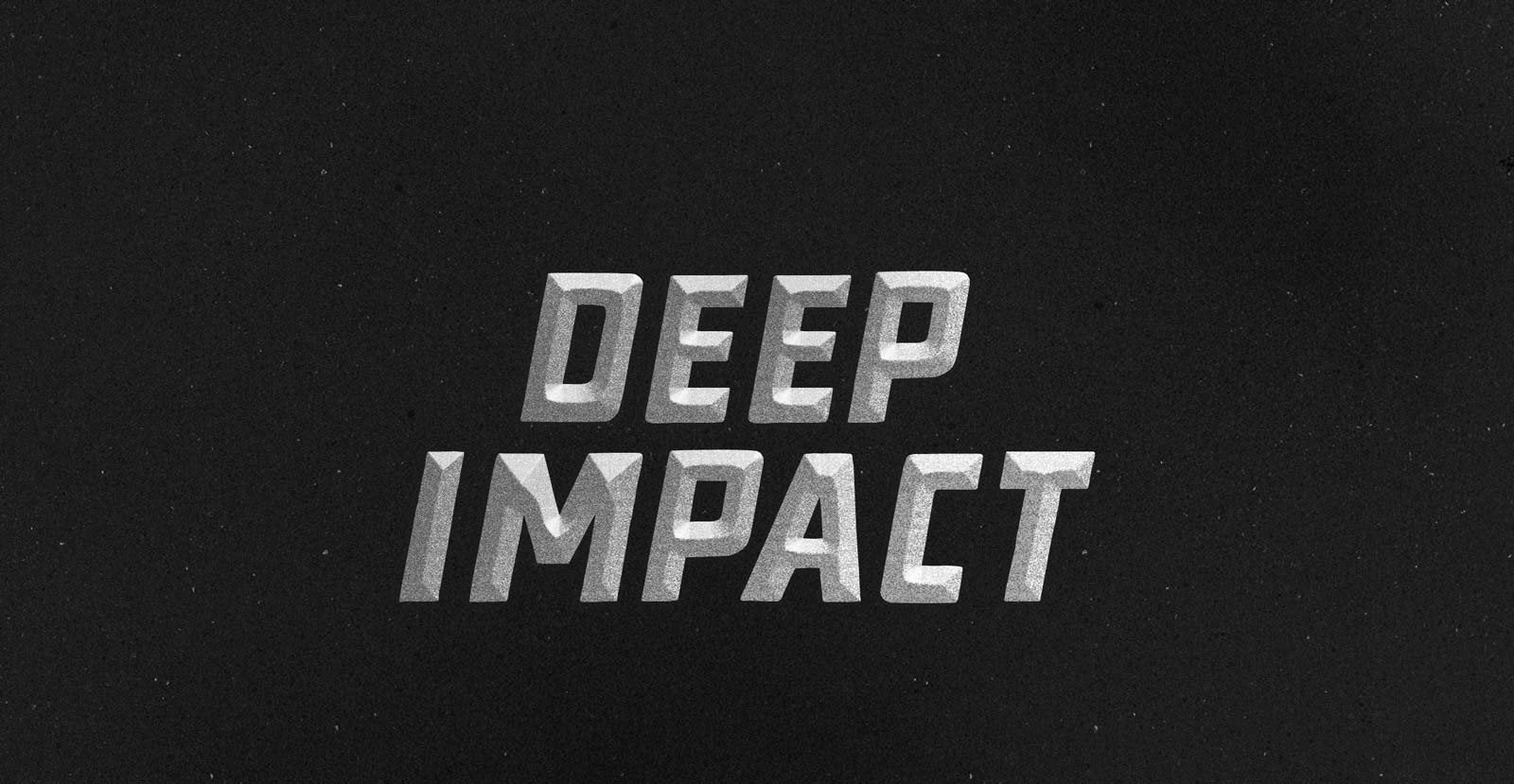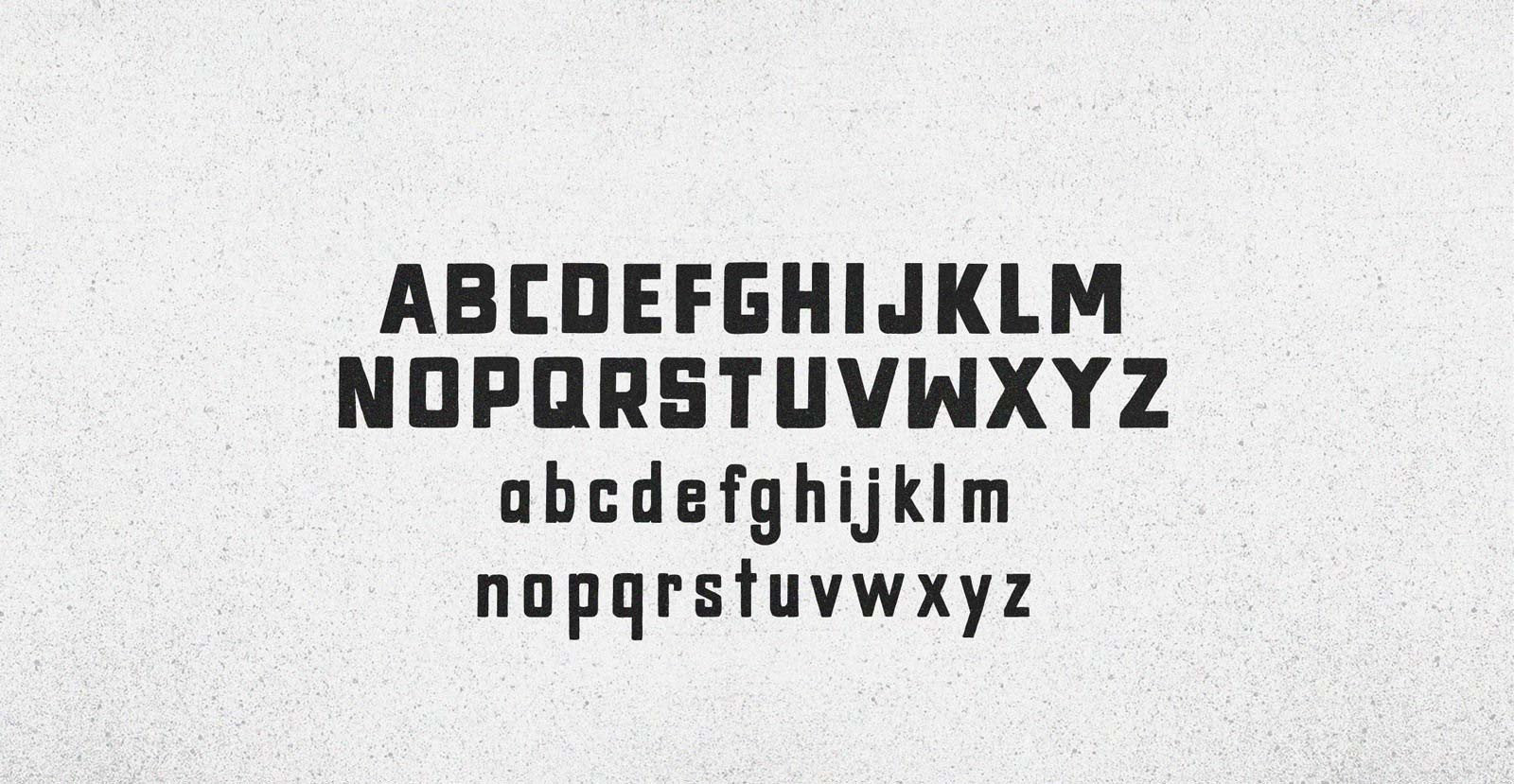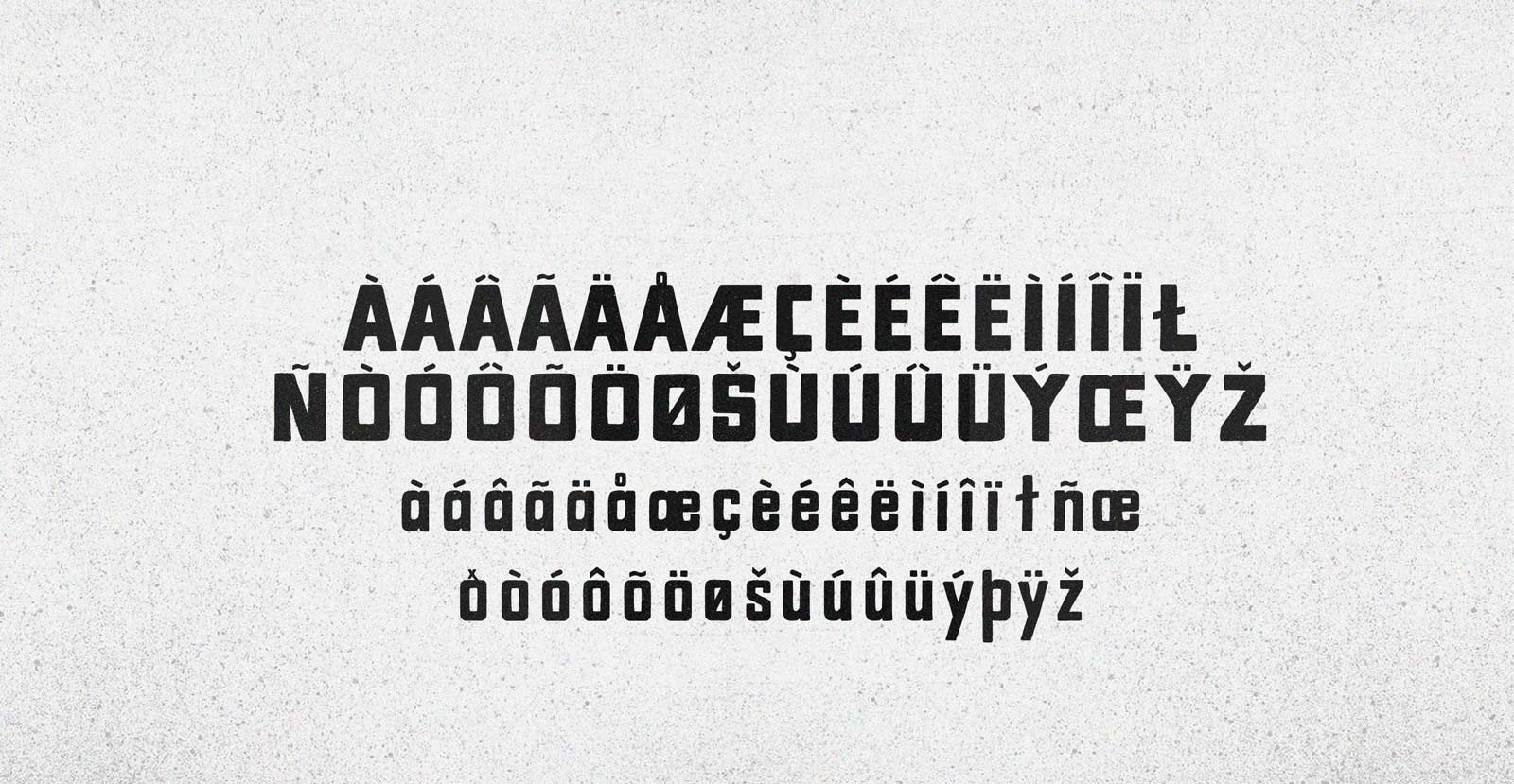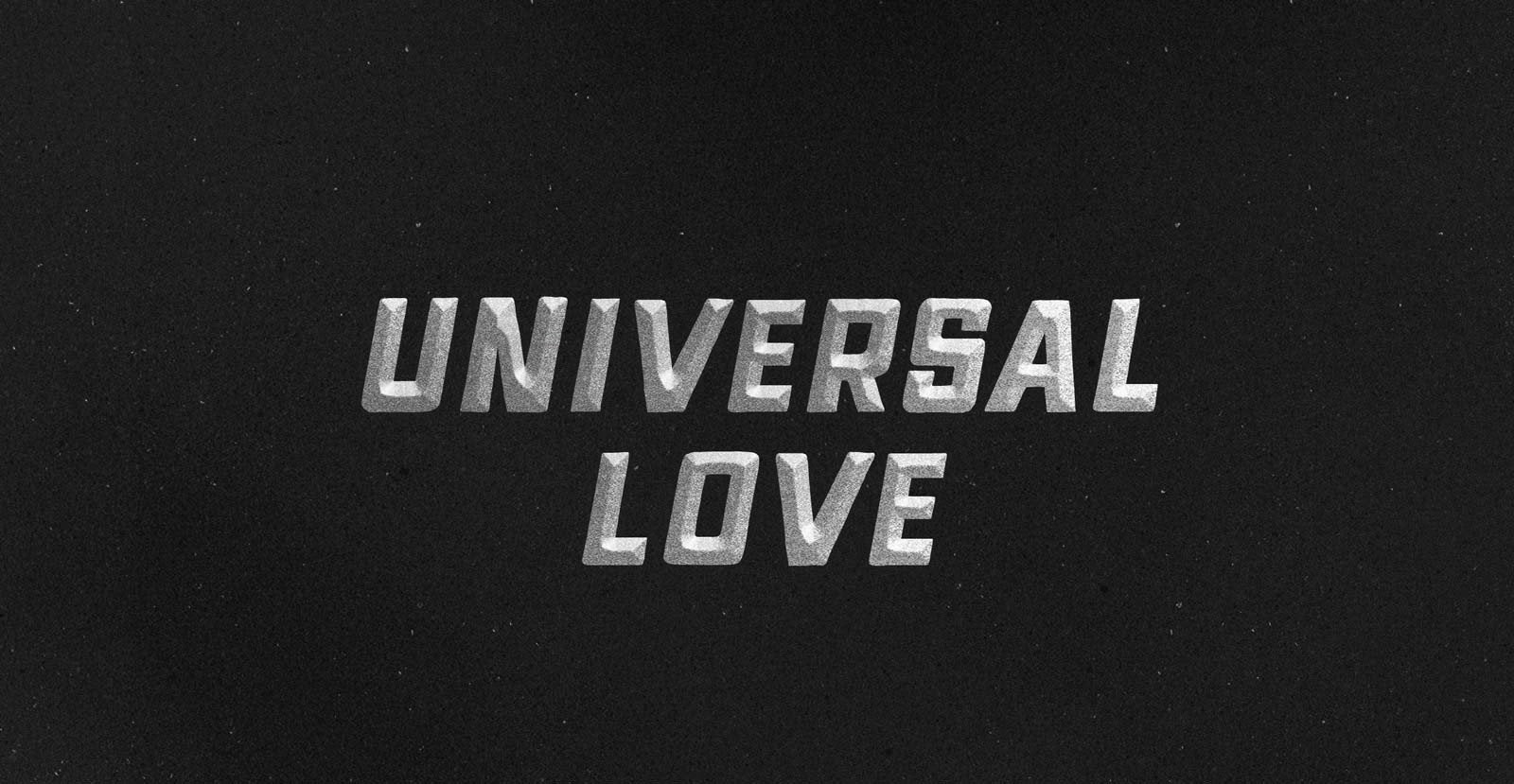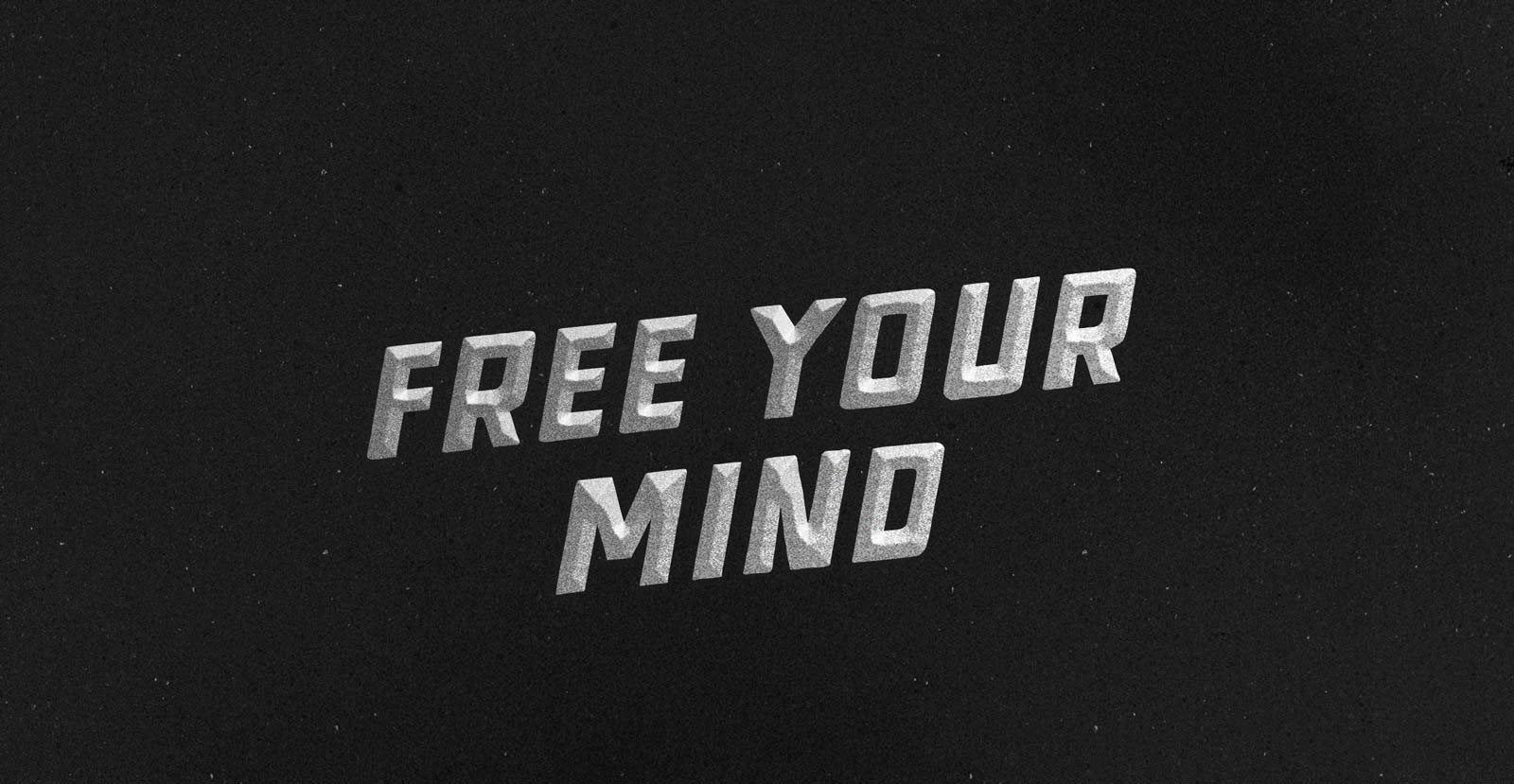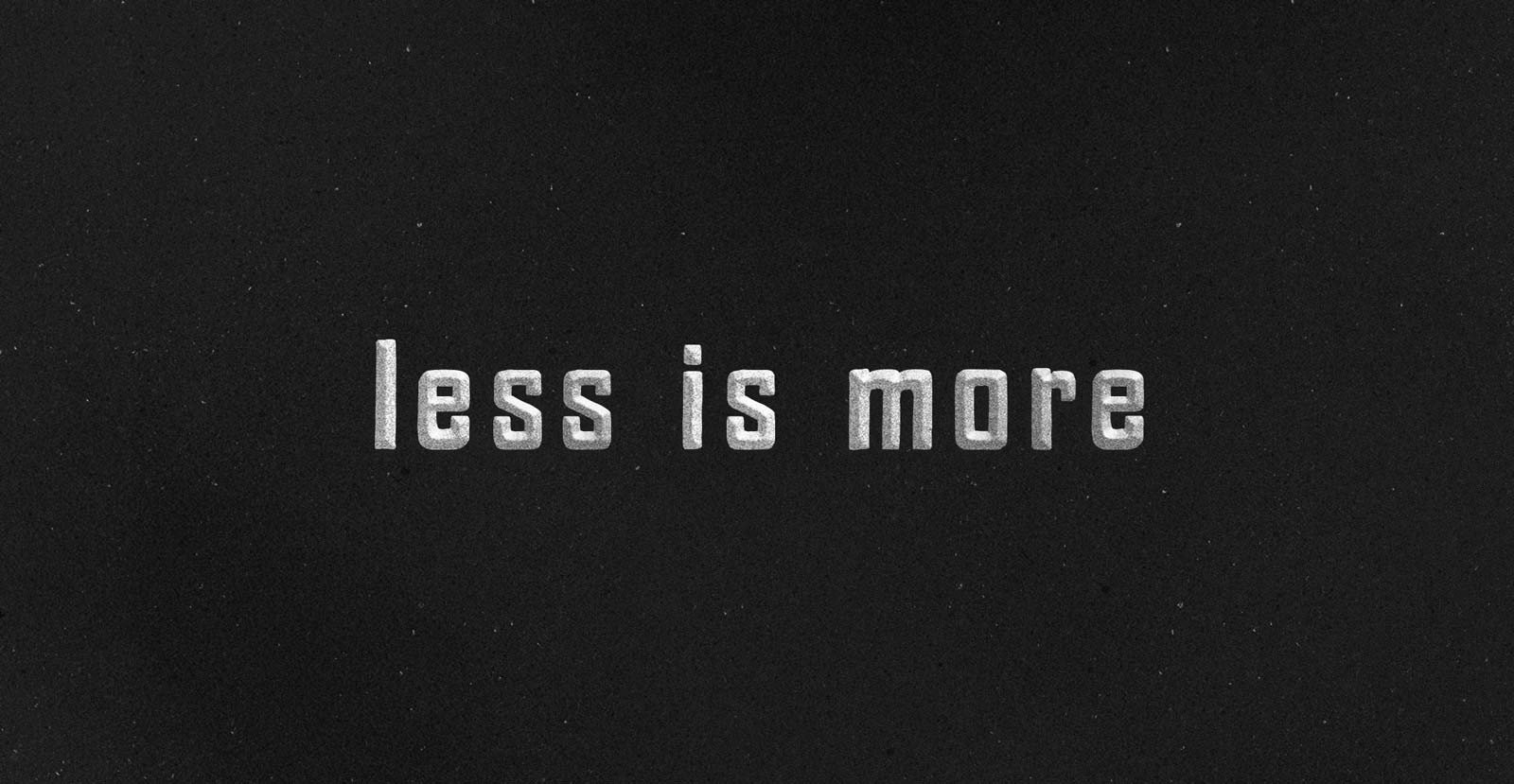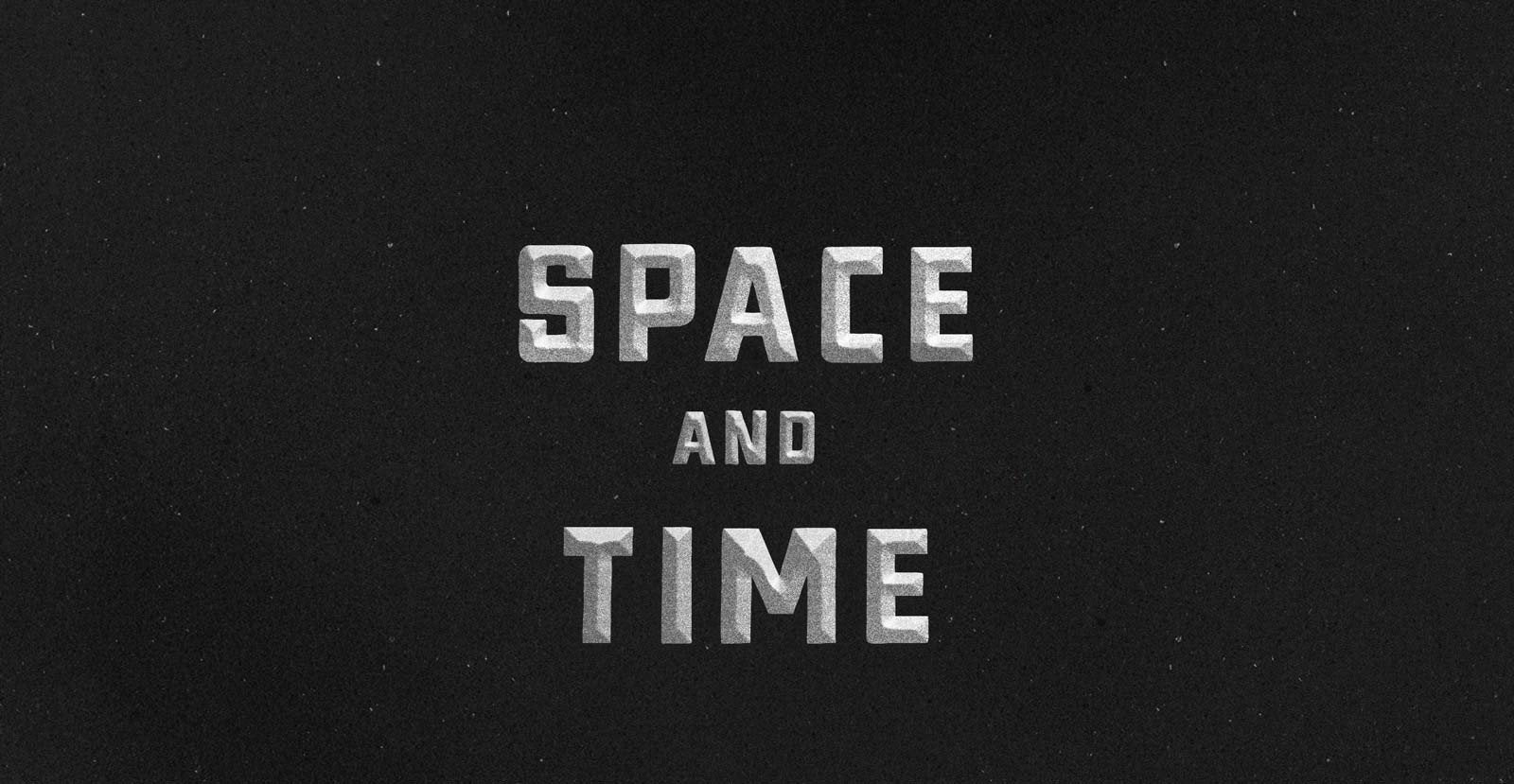
Deep Impact
Handwritten Sans Serif Font
After calibrating your diesel hammer, to optimize its performance, increase its piston's ascent. Increase the speed of its descent. Break bedrock. Achieve Deep Impact.